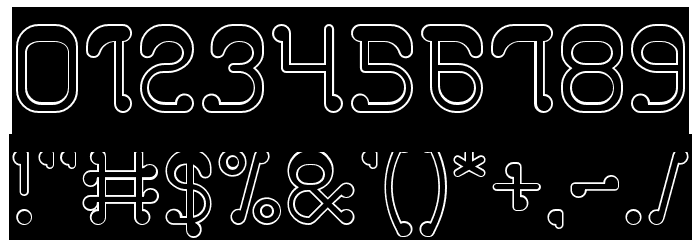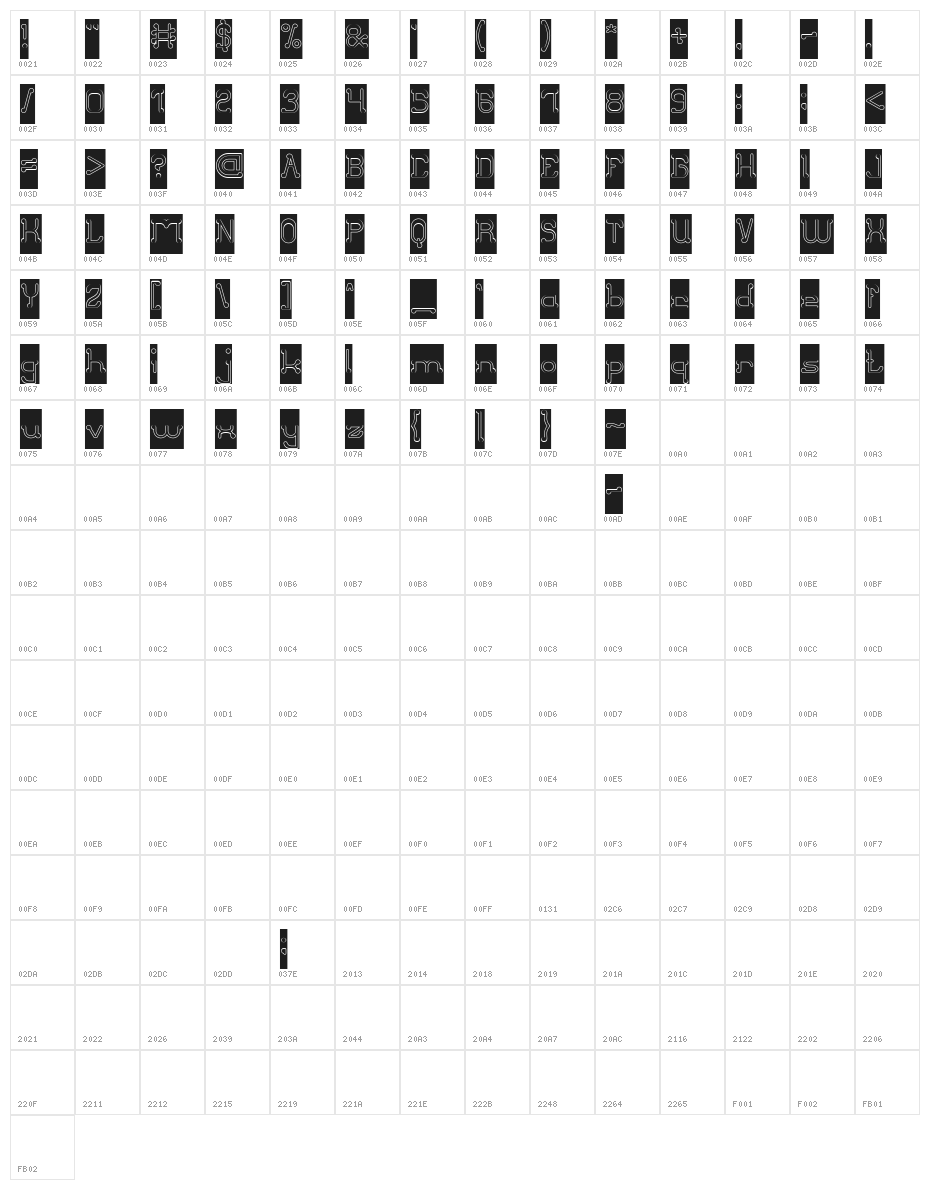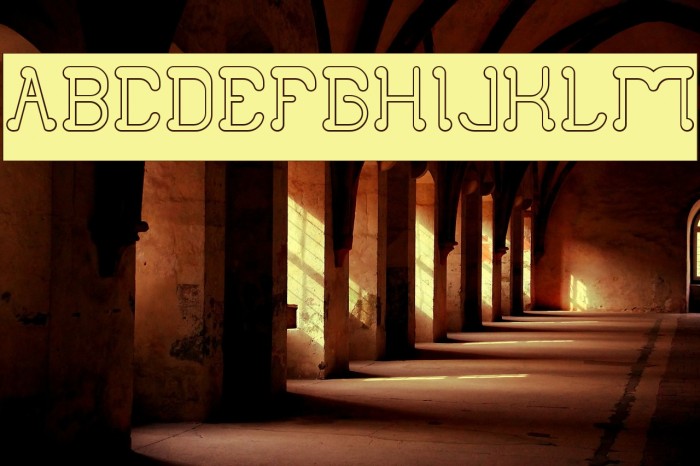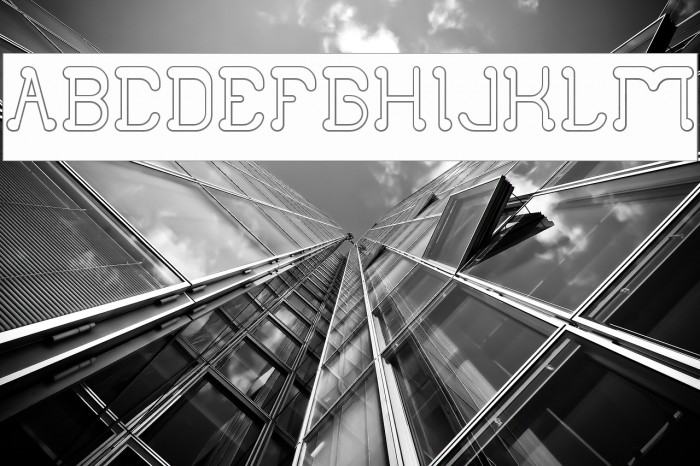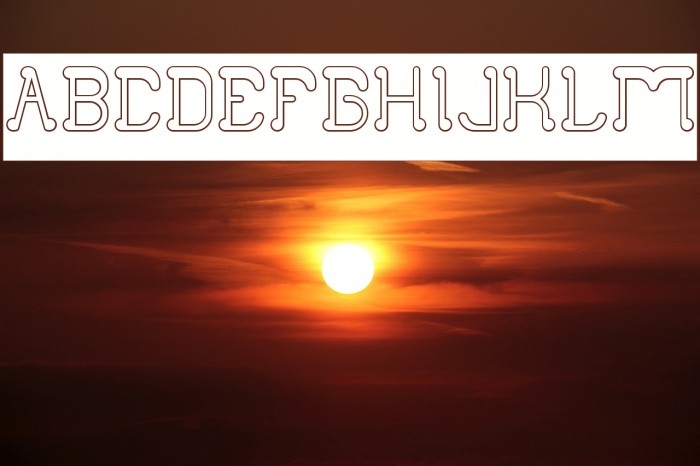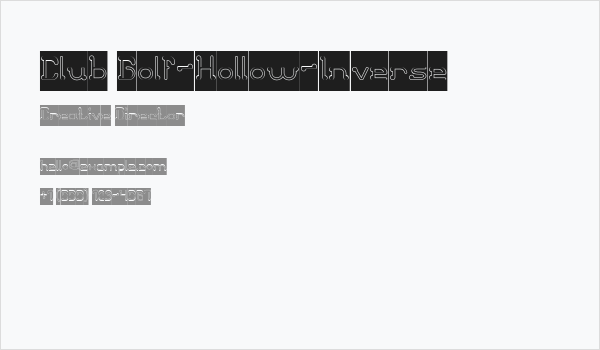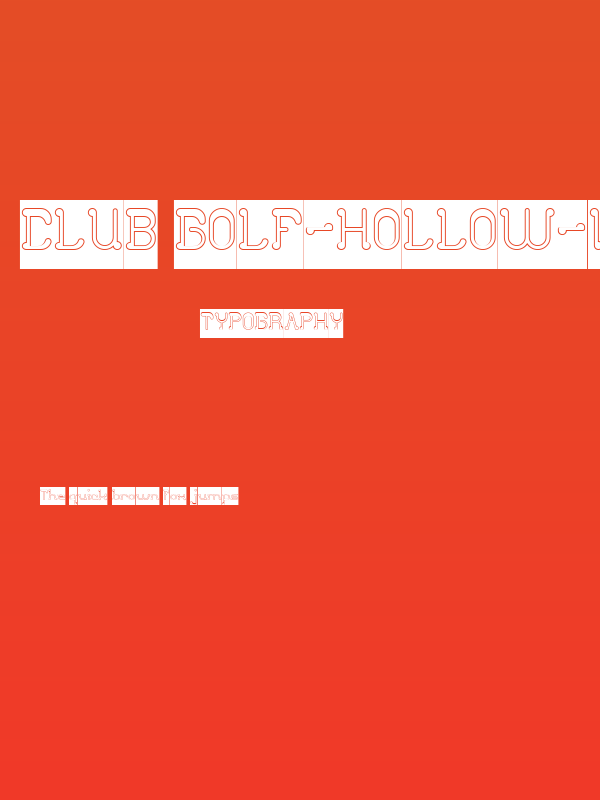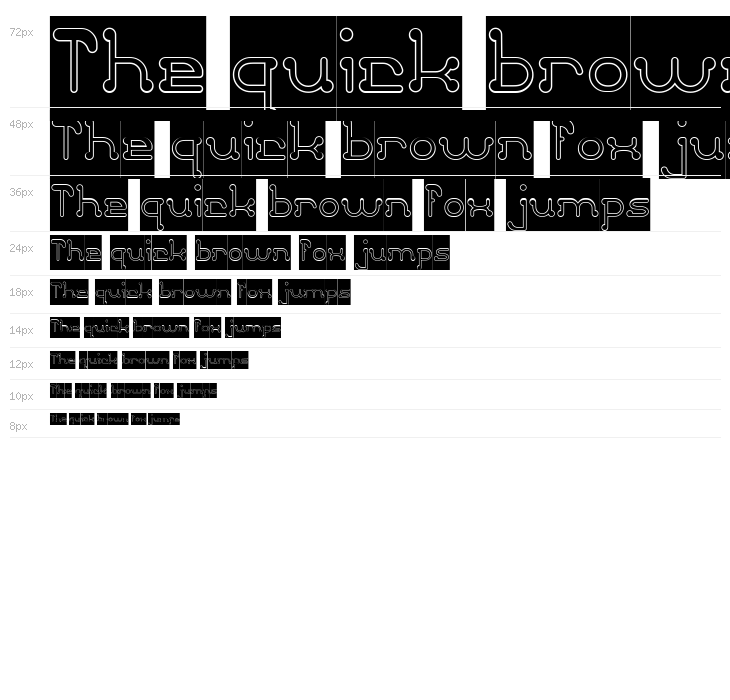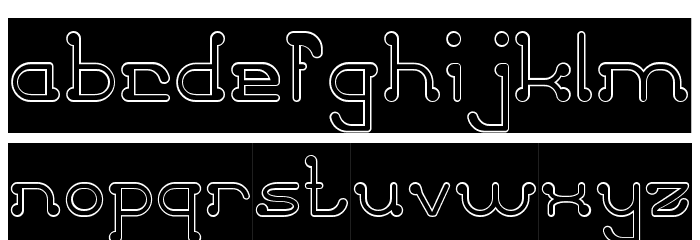
Club Golf-Hollow-Inverse Font
Club Golf-Hollow-Inverse Description
This font features a unique hollow design with a modern and playful aesthetic. Each character is outlined, creating an open and airy feel that is both eye-catching and stylish. The uppercase and lowercase letters maintain a consistent structure, with rounded edges and a geometric influence. The numerals and special characters follow the same design principles, ensuring uniformity across the typeface. This font is ideal for projects that require a bold statement without being overly heavy, offering a fresh and contemporary look.